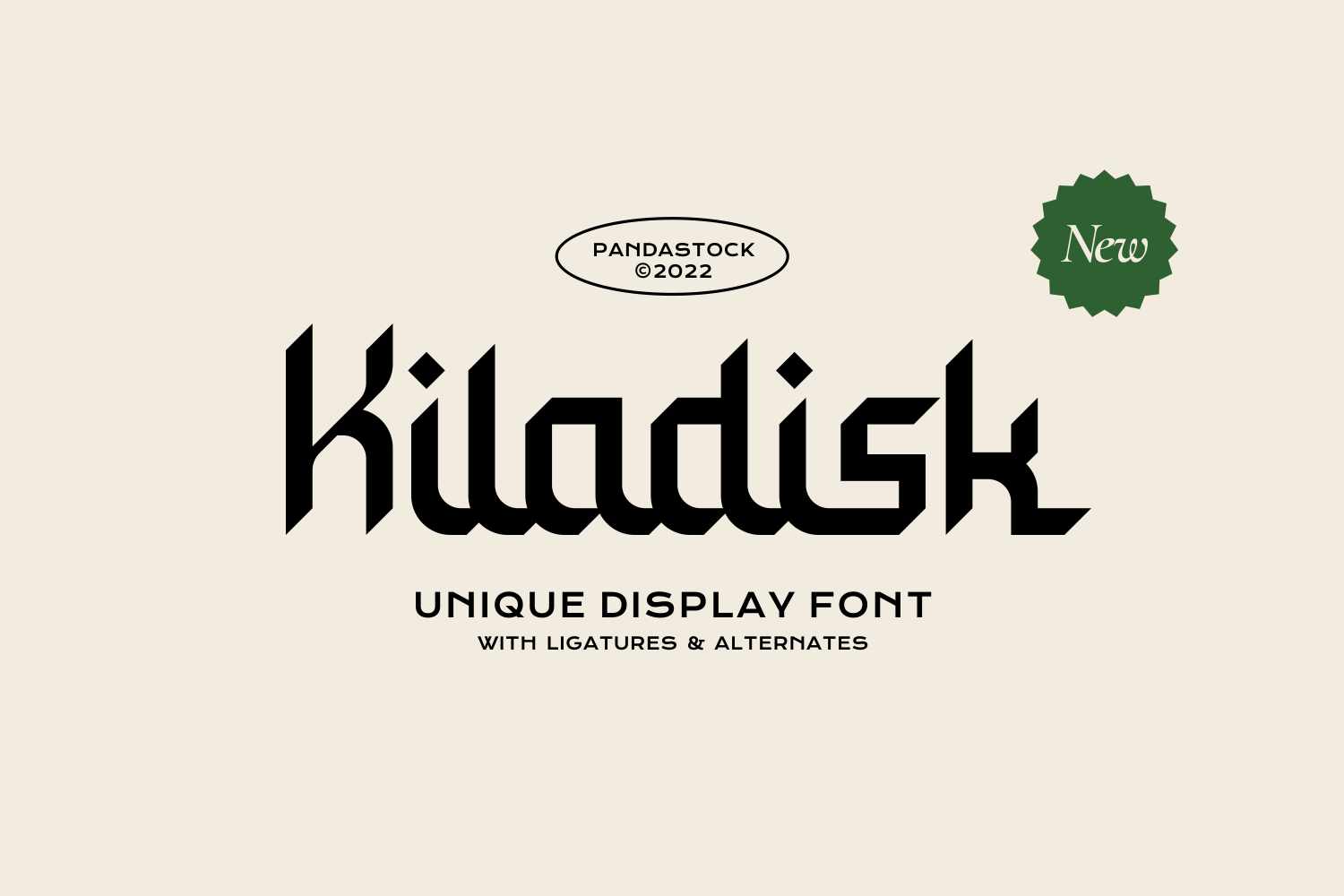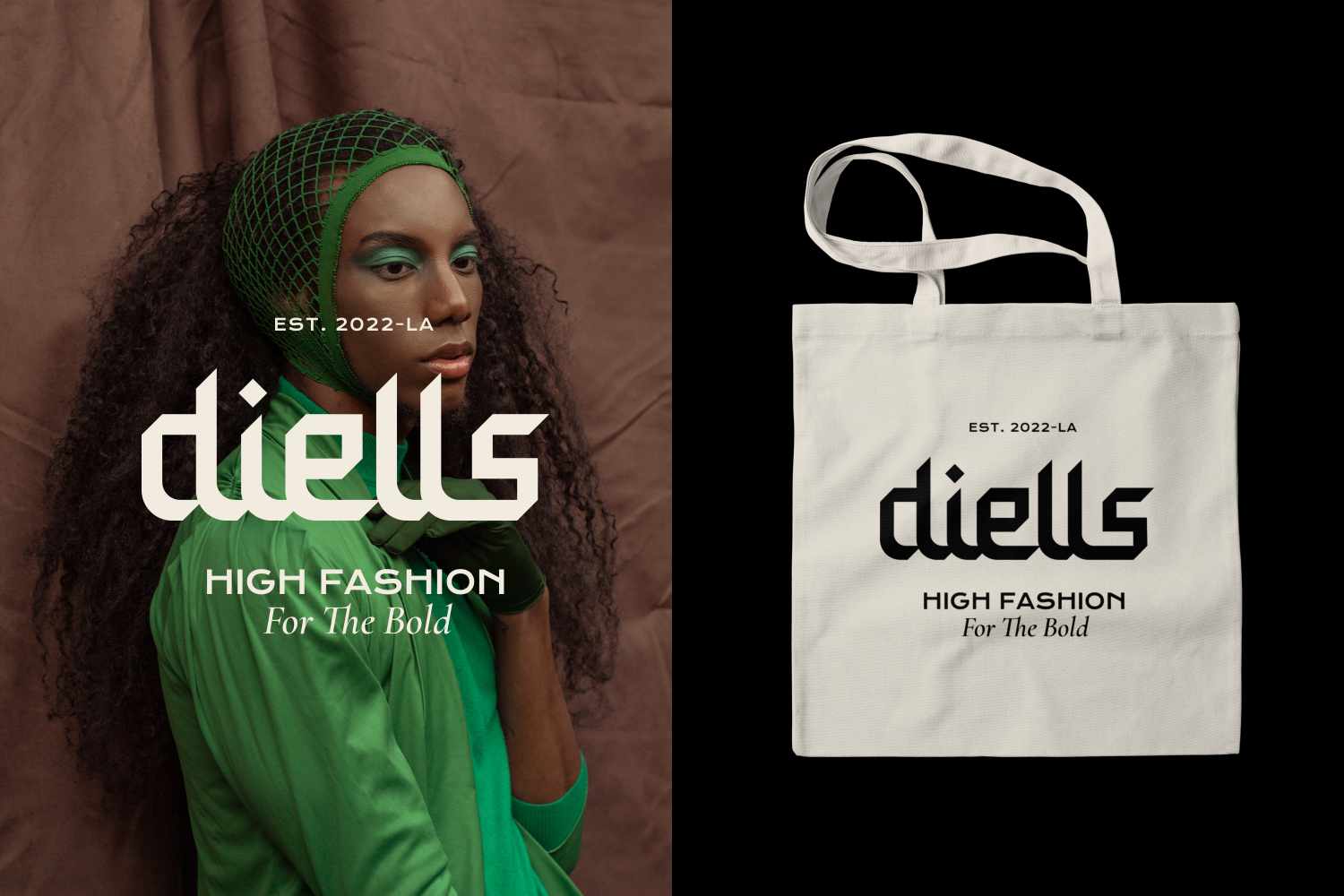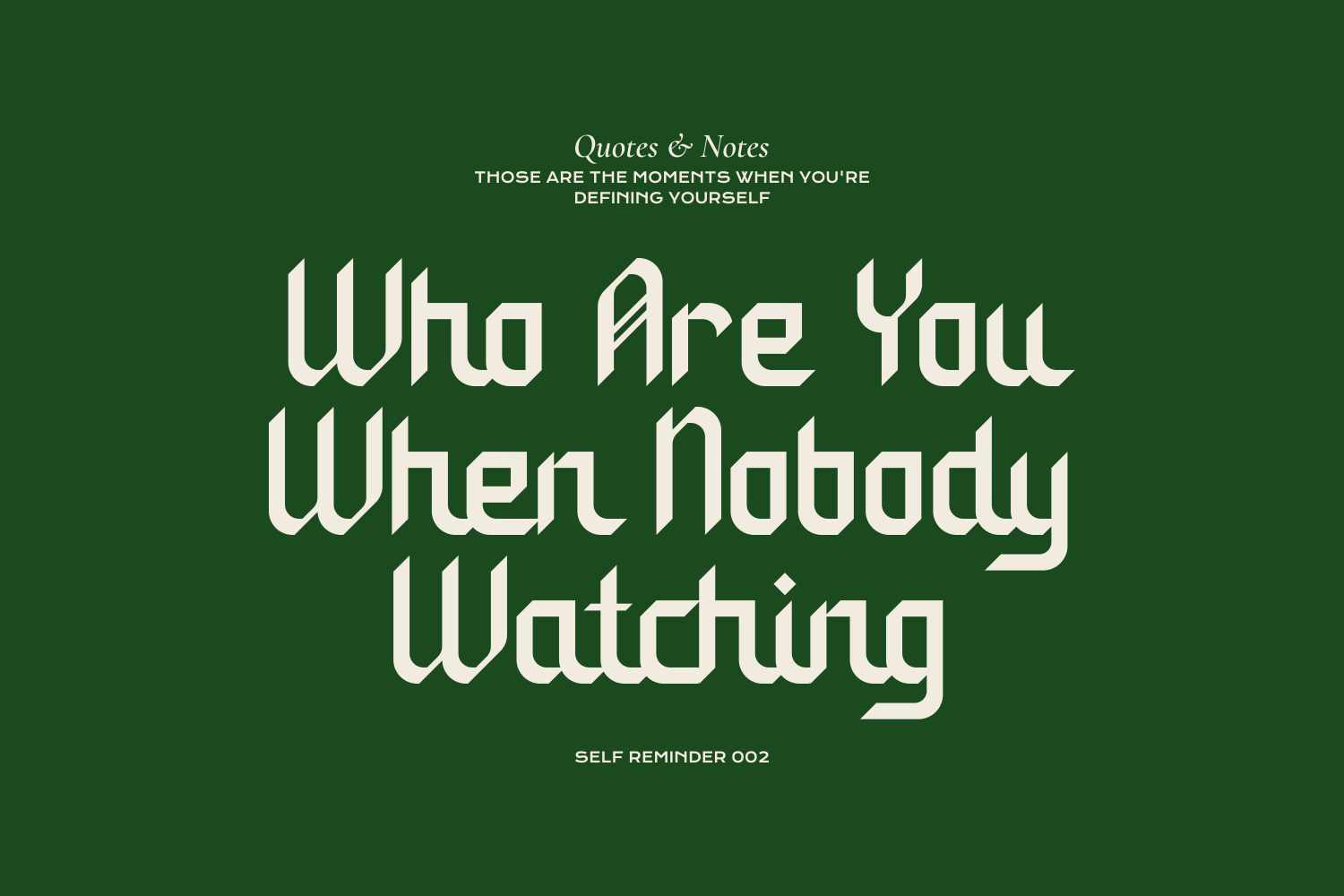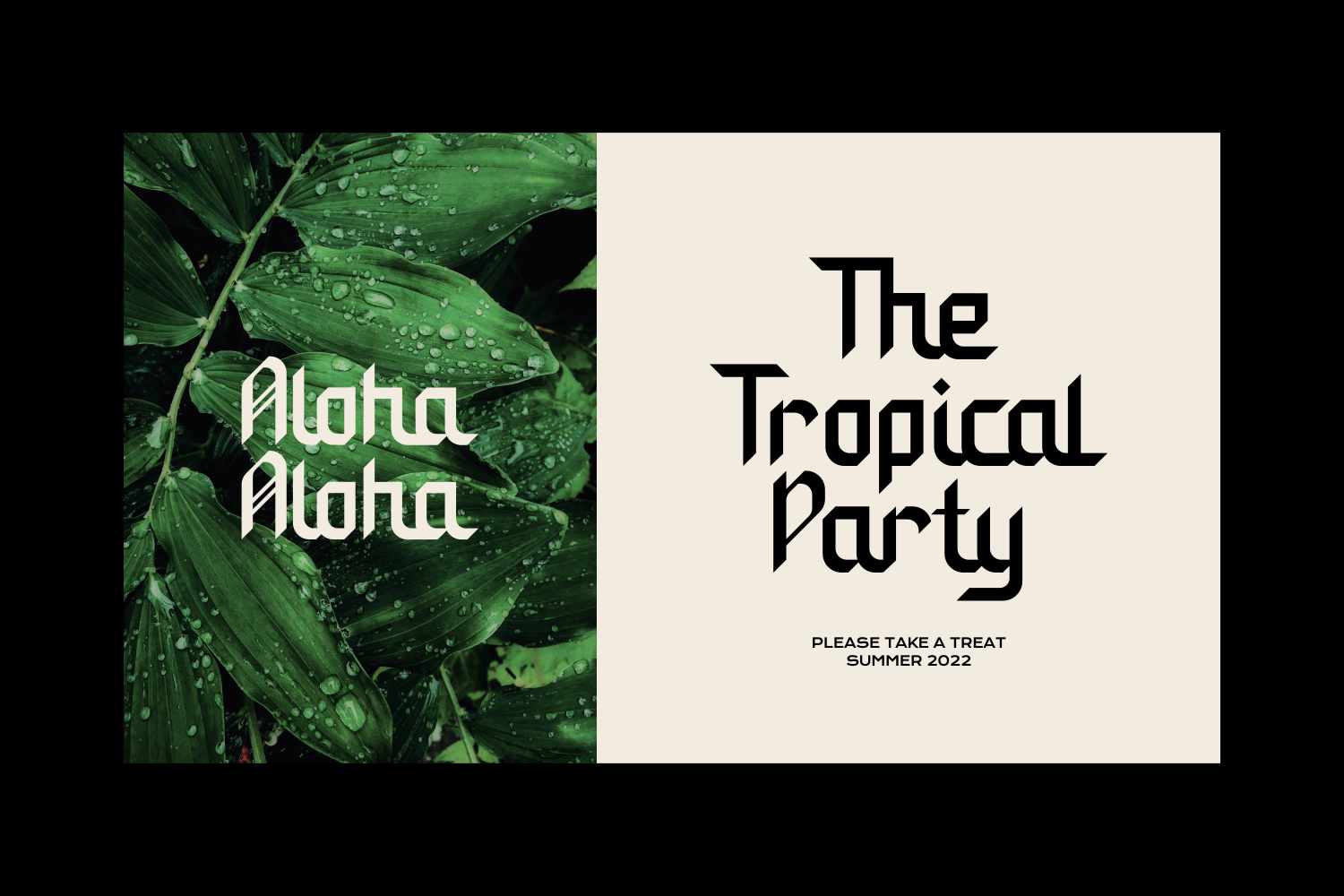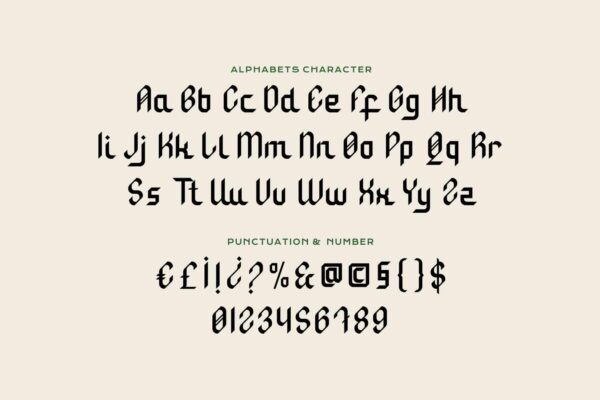
Kiladisk is a unique display font with a bold geometric style and sharp angular strokes. Its futuristic yet retro-inspired look makes it a standout choice for fashion branding, editorial design, posters, and product packaging. The font’s strong presence and distinctive structure ensure that any project will grab attention and leave a lasting impression.
Equipped with ligatures and alternates, Kiladisk provides flexibility and creative variety for designers. Whether applied to high-fashion campaigns, lifestyle branding, or modern visual identities, this font adds a daring and stylish character. It’s perfect for those who want to combine boldness with elegance in their design work.
Kiladisk
Imoodev Studio